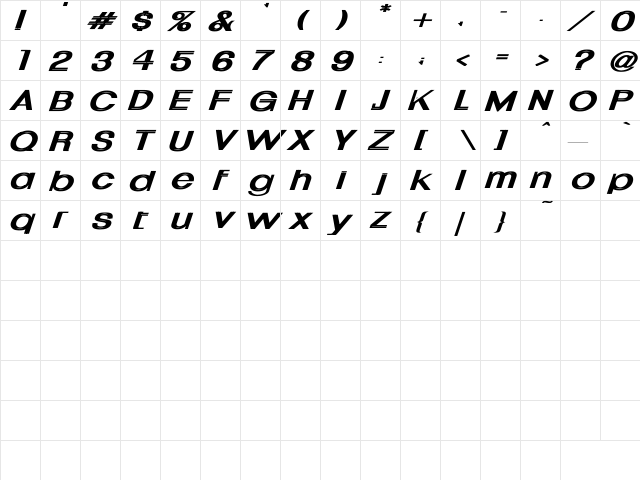
Uptight Wd Bold Italic Regular
Design Context for Uptight Wd Bold Italic Typeface
Uptight Wd Bold Italic offers clean, dependable letterforms without strong stylistic allegiance, making it a practical choice for designers who need flexibility. The slanted form adds forward momentum and visual energy. The heavy weight commands attention and anchors typographic hierarchies.
Pro Tip: Try Uptight Wd Bold Italic for annotation and caption copy alongside an upright companion — the contrast in angle creates a dynamic but ordered typographic system.